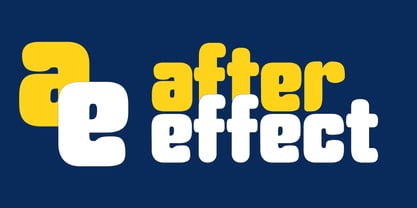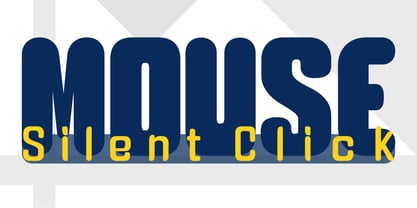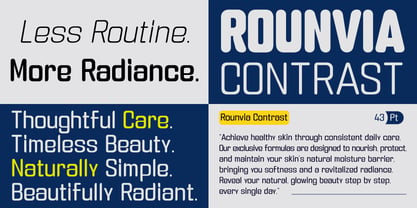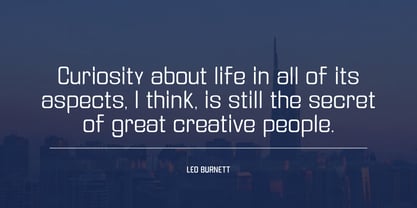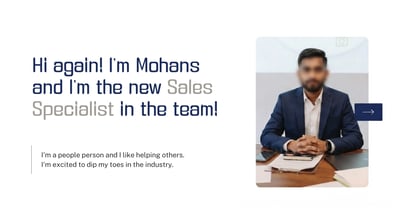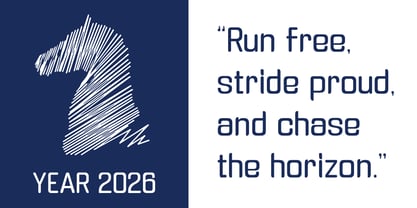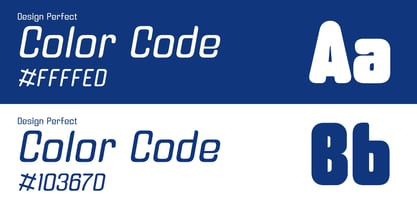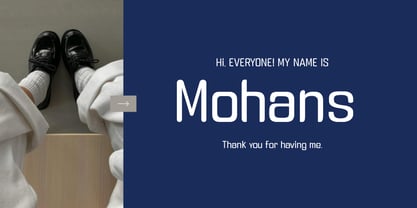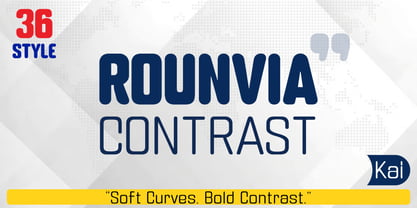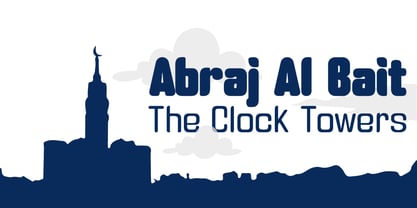
Rounvia Contrast
by Kaidosan
The Rounvia Contrast Font Family was designed by Muhammad Ansari and published by Kaidosan. Rounvia Contrast contains 36 styles and family package options. More about this family
ROUNVIA is a versatile 36-style display typeface that blends soft, rounded curves with bold, expressive contrast. The family spans from Thin to Black, including matching Italic styles, with every weight available in Soft and High Contrast versions.
Designed for maximum flexibility and visual impact, ROUNVIA is perfect for branding, logos, headlines, posters, packaging, editorial design, and modern creative projects.